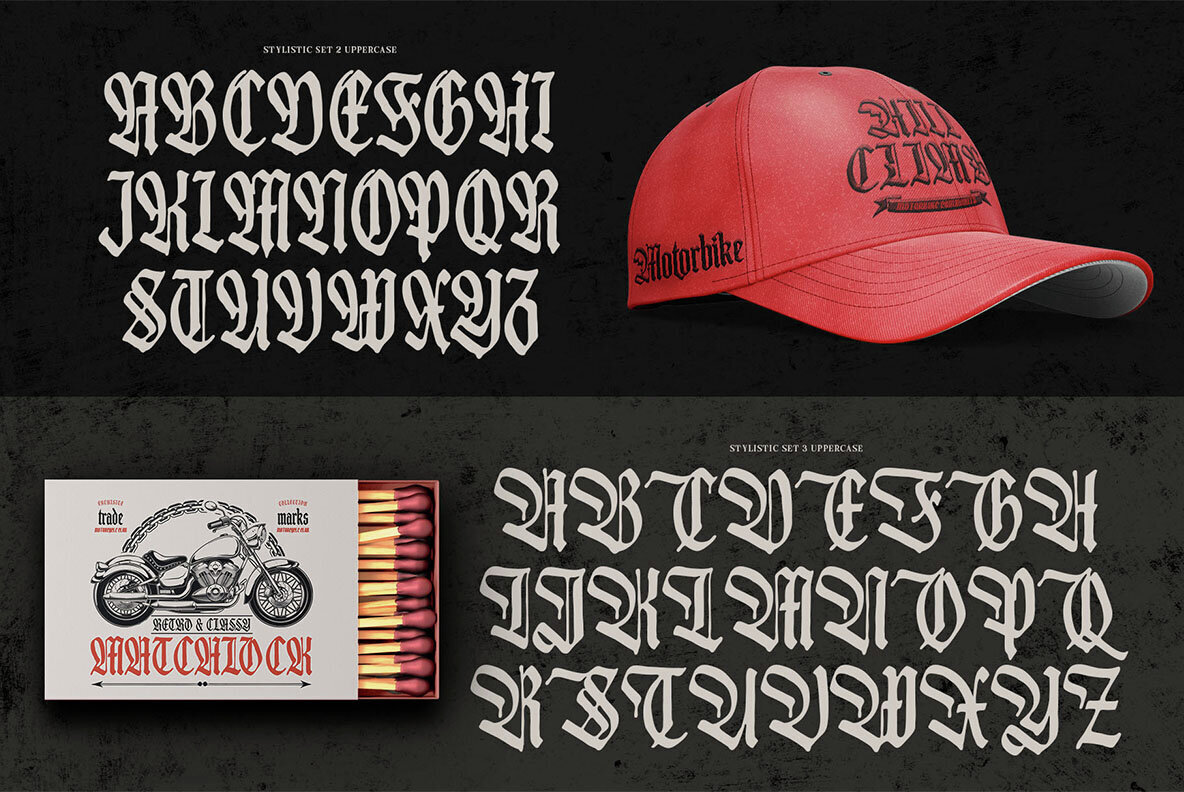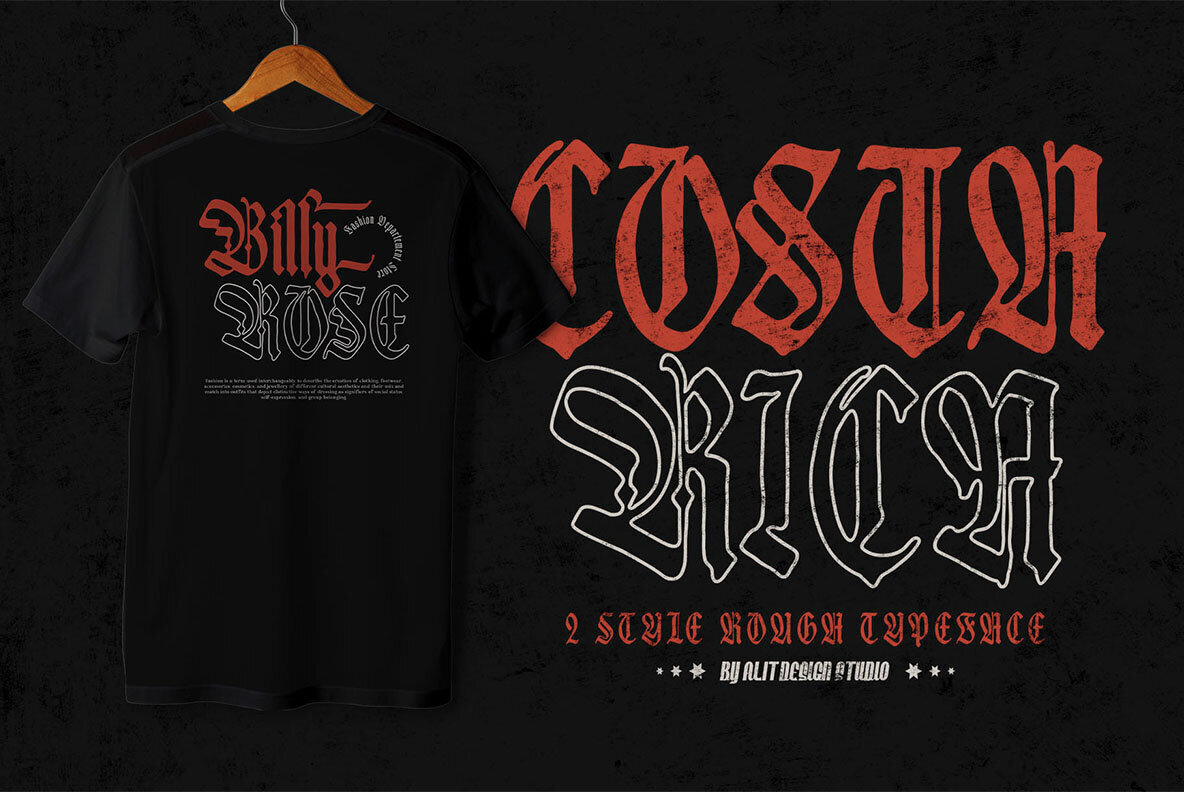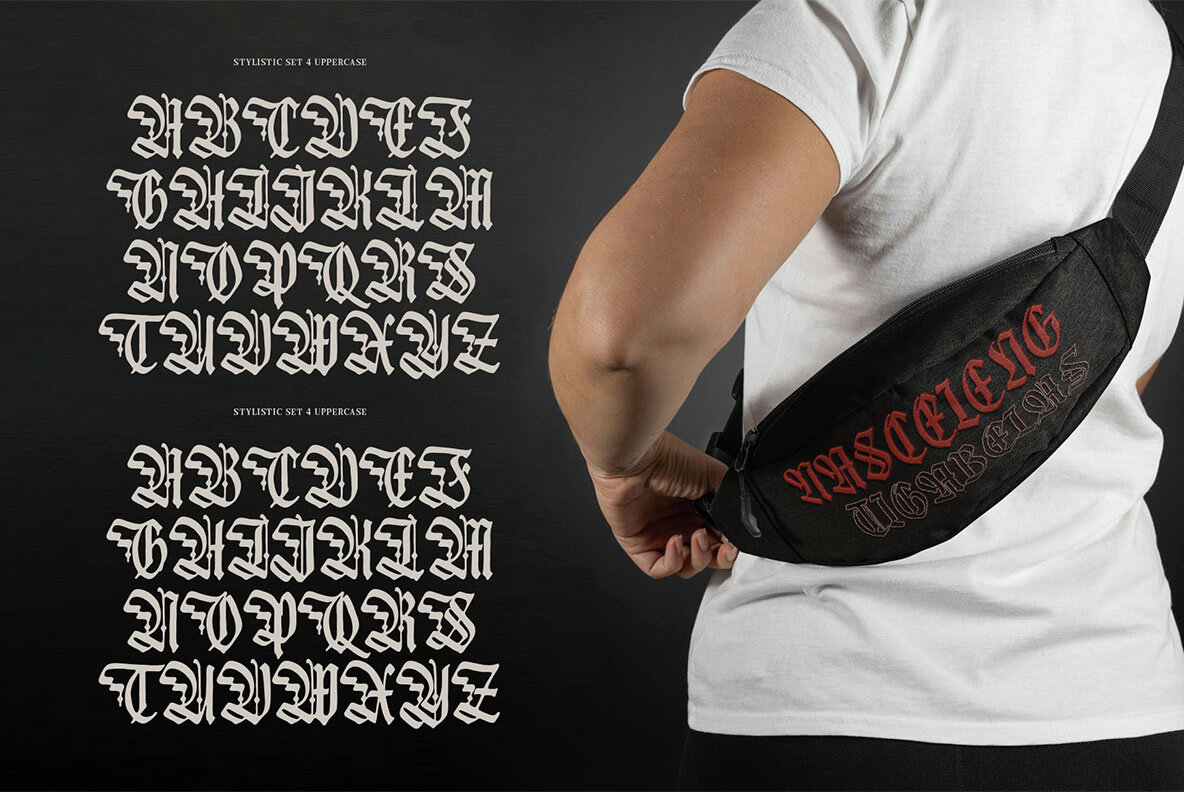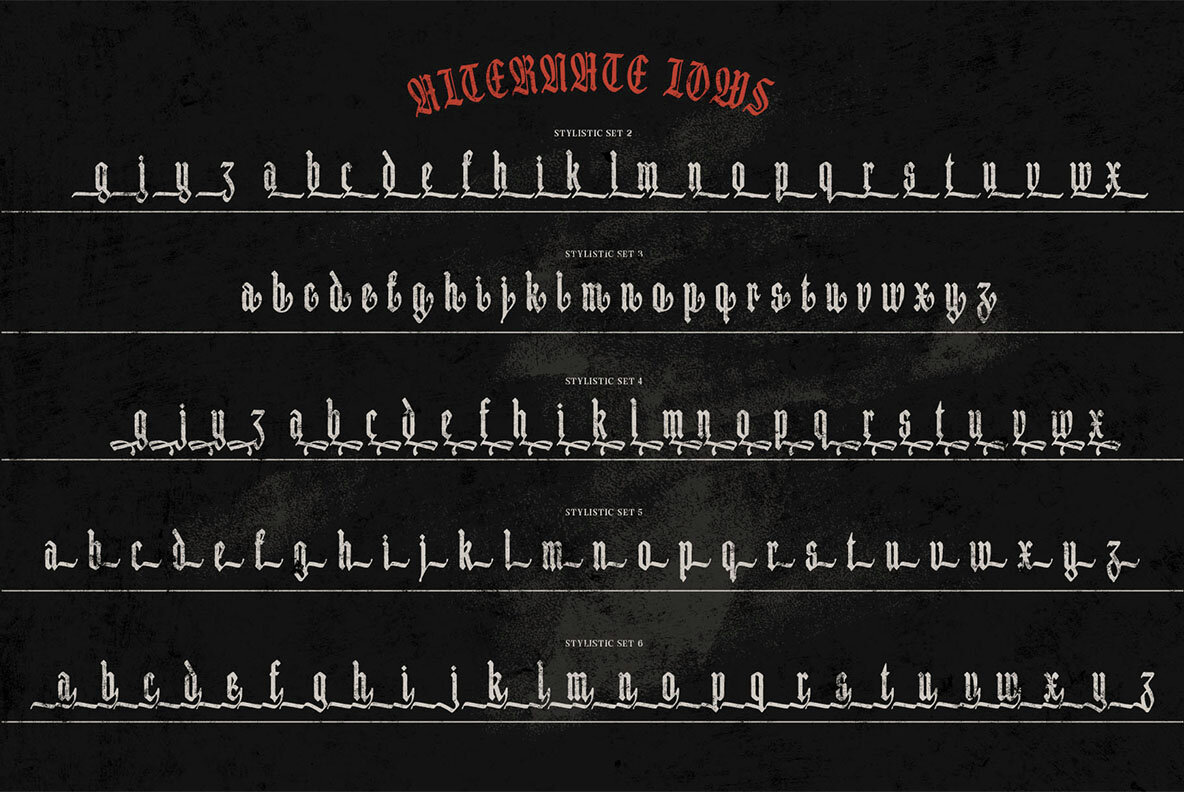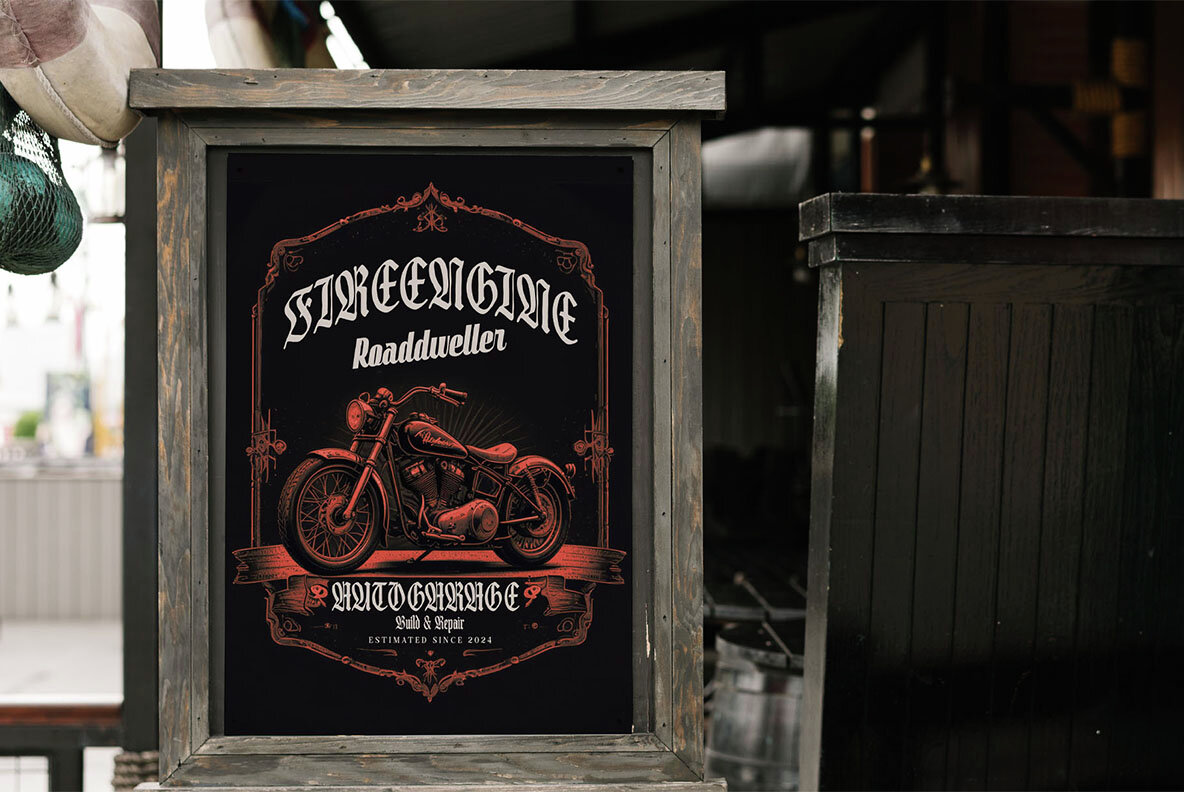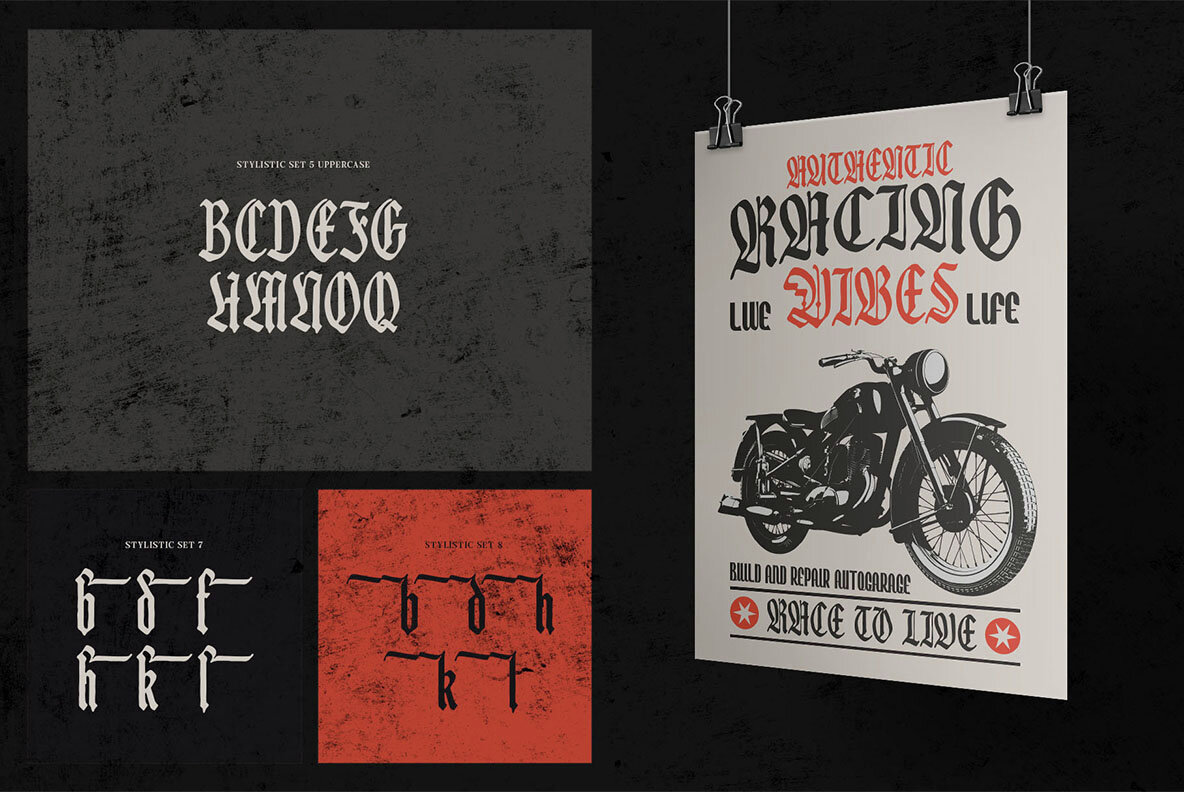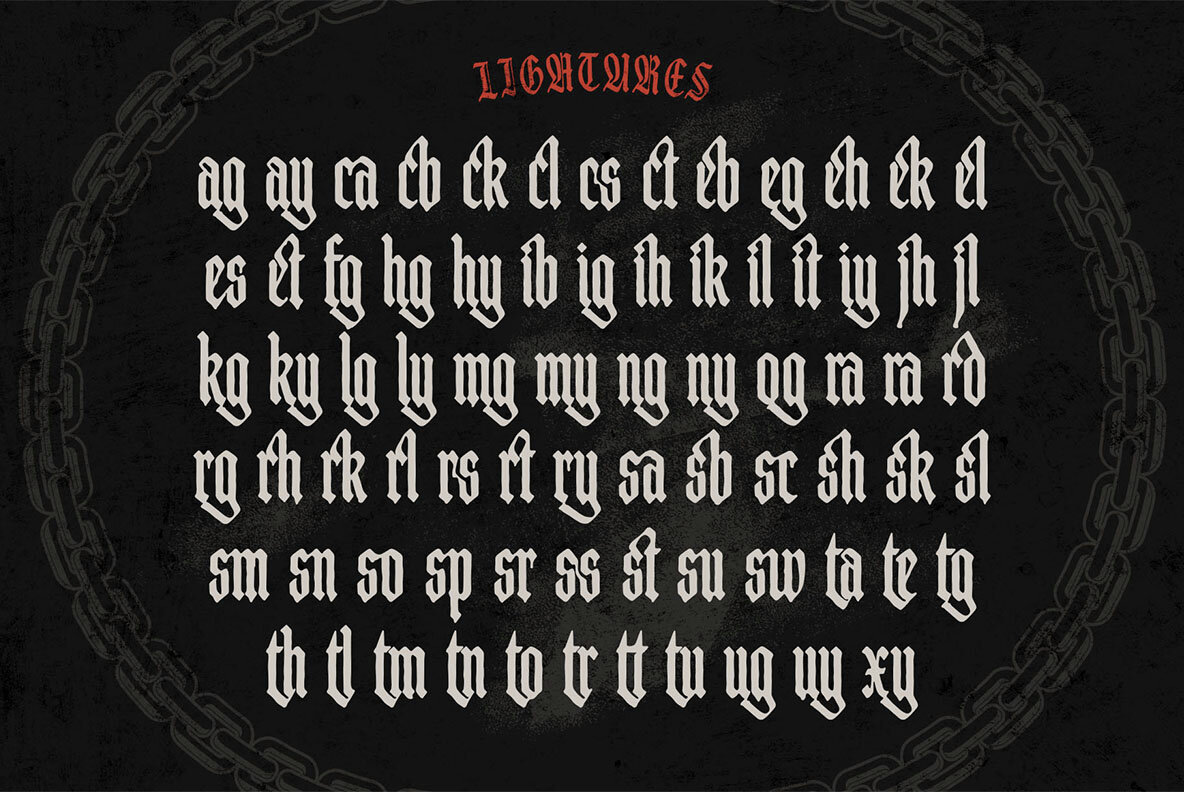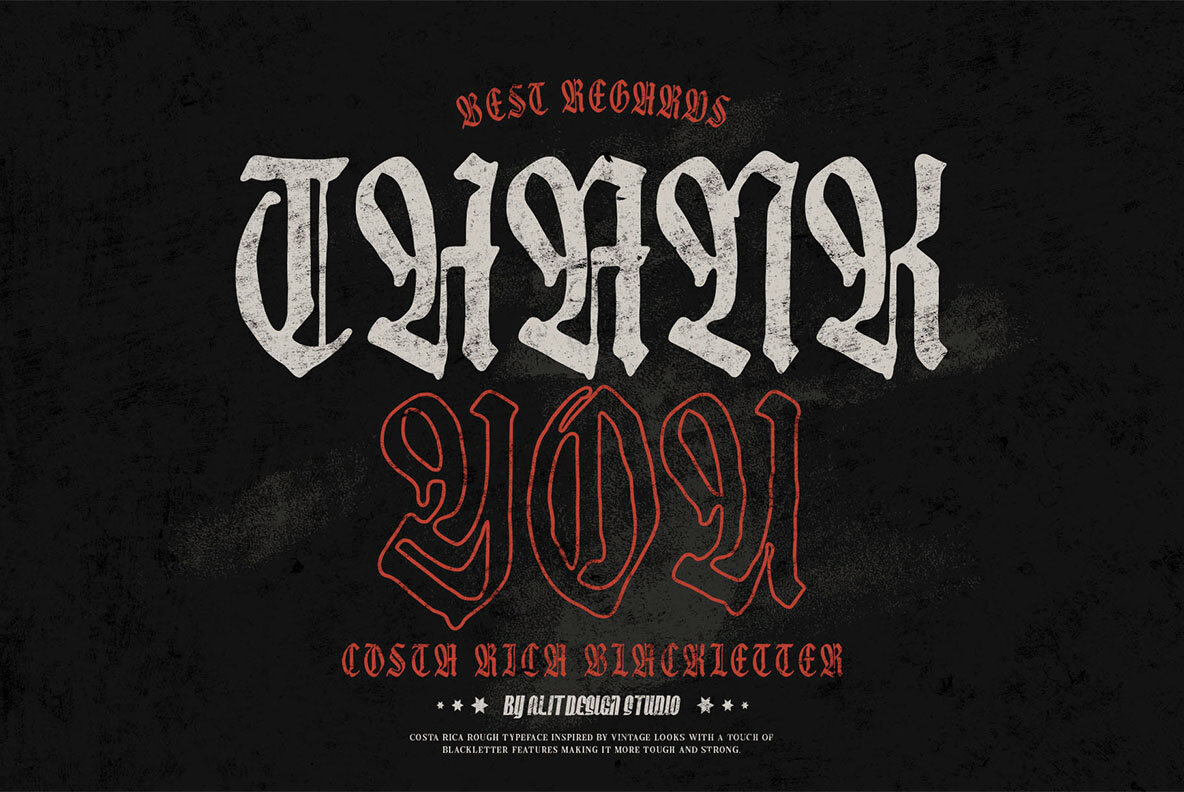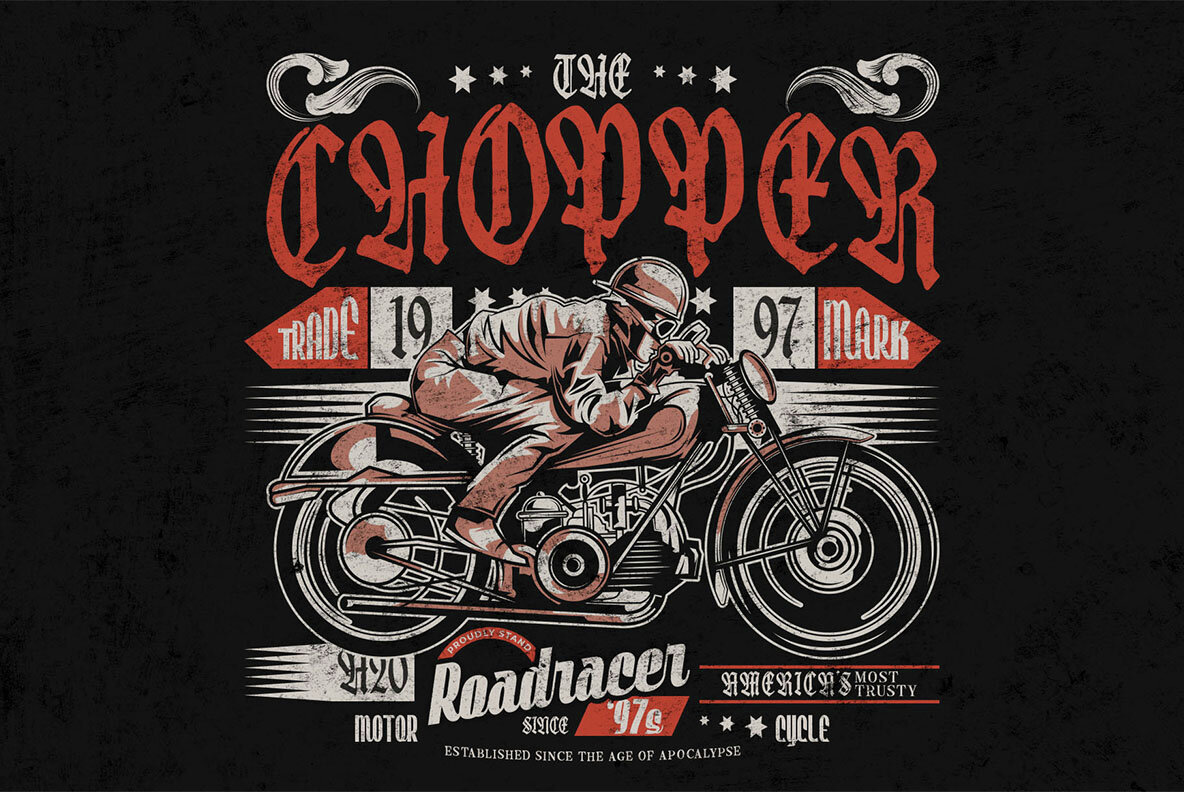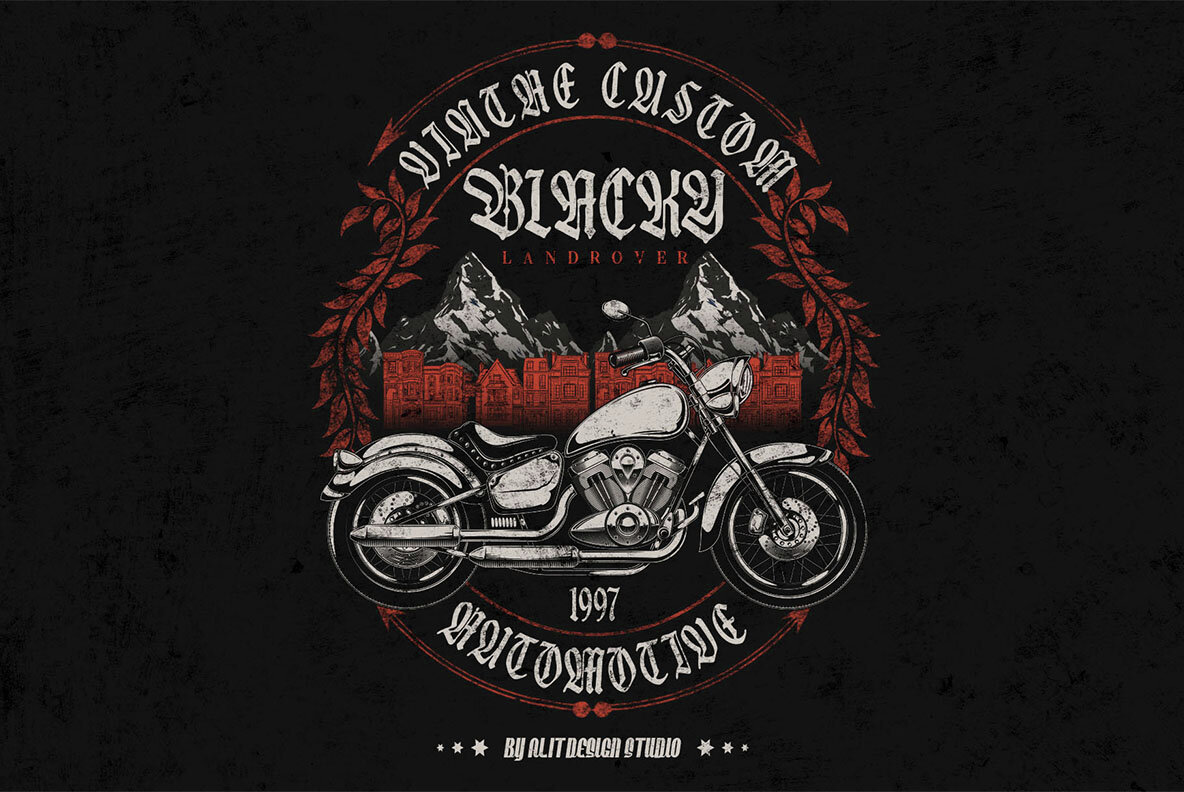
Costa Rica Font
Discover the timeless elegance and rugged charm of Costa Rica Old Blackletter, a font that encapsulates the spirit of vintage typography with a touch of rustic authenticity. Inspired by traditional blackletter typefaces, this font carries the weight of history with a unique, hand-crafted stamp texture that evokes the look and feel of aged print. Key Features: Old Blackletter Style: Costa Rica Old Blackletter pays homage to the classic blackletter typefaces, characterized by their bold, dramatic strokes and intricate detailing. Perfect for projects that require a touch of medieval or gothic flair. Rough Stamp Texture: Every character in this font has been meticulously designed to feature a rough, worn texture, giving it the appearance of an old stamp. This effect adds depth and character, making your text stand out with a rugged, vintage charm. Vintage Appeal: Whether you're working on retro-themed posters, branding, packaging, or invitations, Costa Rica Old Blackletter brings an air of nostalgia. Its aged appearance makes it ideal for projects that aim to evoke the past while maintaining a unique, modern edge. Ligatures & Alternates: To enhance your typographic creativity, Costa Rica Old Blackletter comes with a rich set of ligatures and alternate characters. These features allow you to create beautifully flowing text and add variety to your designs, ensuring that every piece you create is truly one-of-a-kind. Extensive Character Set: With an impressive 855 characters, Costa Rica Old Blackletter offers comprehensive support for multiple languages, including special characters and diacritics. Whether you're designing for an international audience or creating detailed typography, this font has you covered. Why Choose Costa Rica Old Blackletter? If you're seeking a font that combines historical elegance with a rugged, vintage feel, Costa Rica Old Blackletter is the perfect choice. Its unique texture and extensive features make it a versatile and powerful tool for any designer looking to add a touch of timeless style to their work. Bring the past to life with Costa Rica Old Blackletter—where history meets creativity.